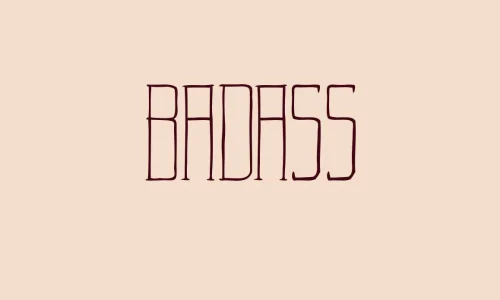
Introducing you to a very beautiful typeface that has a clear texture and appearance known as Storybook Font. This font is a group member of the fancy typeface family. The designer of this stunning font family is dafont.
This typeface has unique glyphs along with 1024 units per em and characters including alphabets, symbols, numbers, and so more. For more classic features, you will have to use its alternative disco diva font which has the same features.